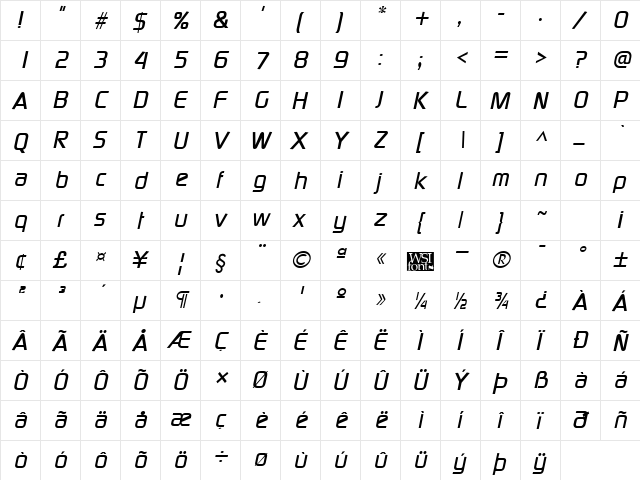
Modaerne Italic
Design Context for Modaerne Typeface
Modaerne offers clean, dependable letterforms without strong stylistic allegiance, making it a practical choice for designers who need flexibility. The slanted form adds forward momentum and visual energy.
Pro Tip: Try Modaerne for annotation and caption copy alongside an upright companion — the contrast in angle creates a dynamic but ordered typographic system.